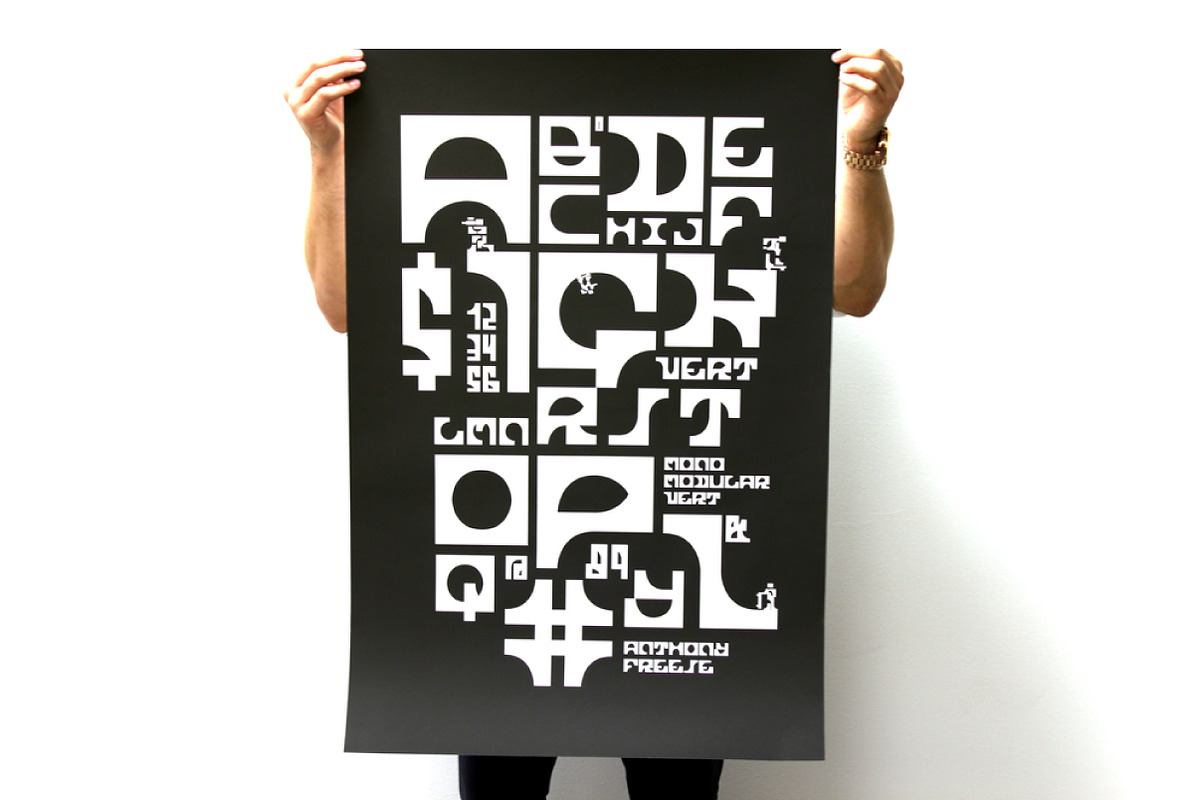
Vert Display Font Free Download
Vert Display Font Free Download is a sleek and contemporary typeface built for bold visual impact. With its tall letterforms and geometric precision, this display font commands attention across branding, fashion editorials, tech visuals, and stylish web design.
Minimal yet expressive, Vert Display Font Free Download offers the perfect blend of modern aesthetics and readability. Its vertical elegance makes it ideal for headlines, posters, logo designs, or any layout that needs to look fresh, confident, and cutting-edge.
Whether you're building a high-end brand or crafting a portfolio with futuristic vibes, Vert Display adds a level of sophistication that sets your work apart. Pair it with clean sans-serifs for contrast or let it stand alone for maximum impact.
This font doesn’t whisper—it stands tall and speaks volumes. Try it out, and let your design language reach new heights.